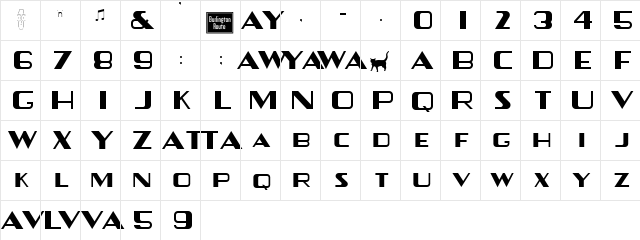
Zephyr Regular
Design Context for Zephyr Typeface
Zephyr offers clean, dependable letterforms without strong stylistic allegiance, making it a practical choice for designers who need flexibility.
Pro Tip: Use Zephyr in both headline and body roles to test its range before committing to a single application.